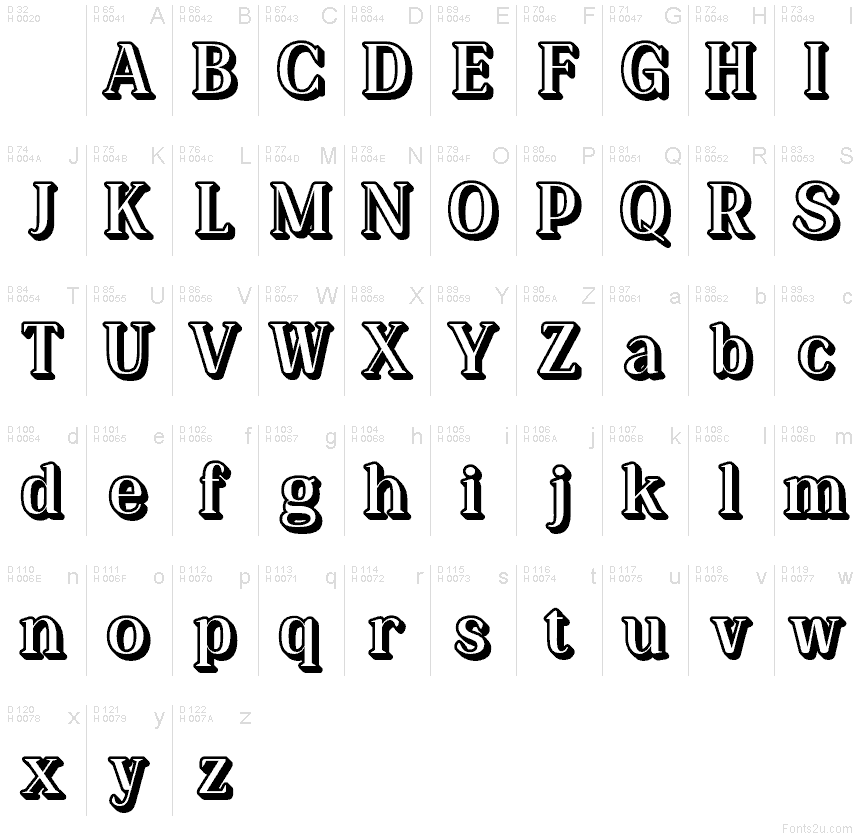
Heidan Rounded ExtrudeRight font by Craft Supply Co. is a free 3D serif typeface with unique display shapes and visual appeal. The characters carry a classic feel along with decorative elements that have vintage inspirations as their main origins.